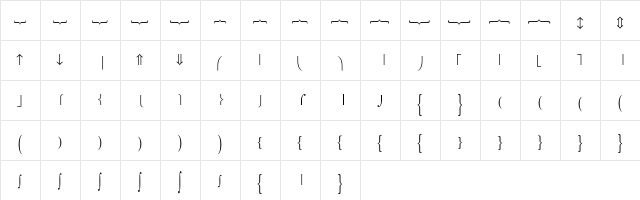
Bittle Regular
Design Context for Bittle Typeface
Bittle takes a measured approach to typography — its balanced proportions and neutral character make it a reliable workhorse for both digital and print work.